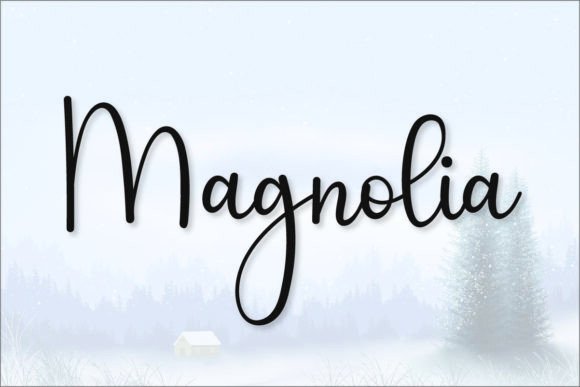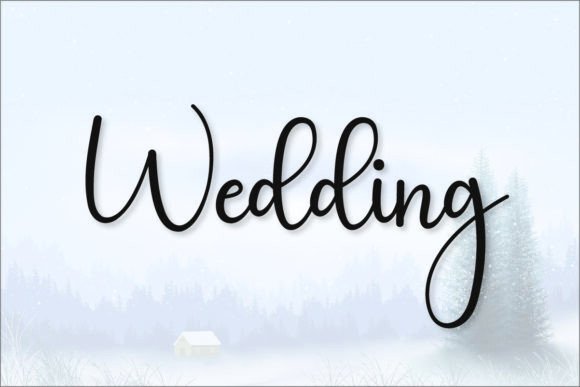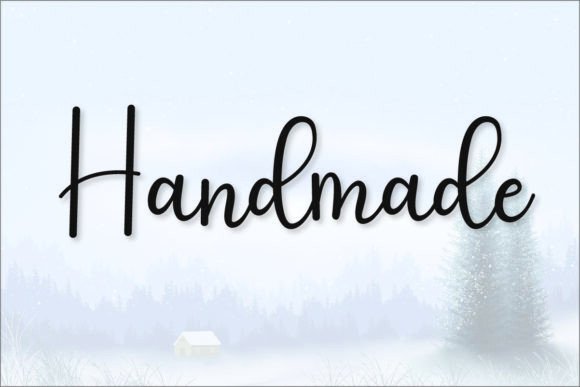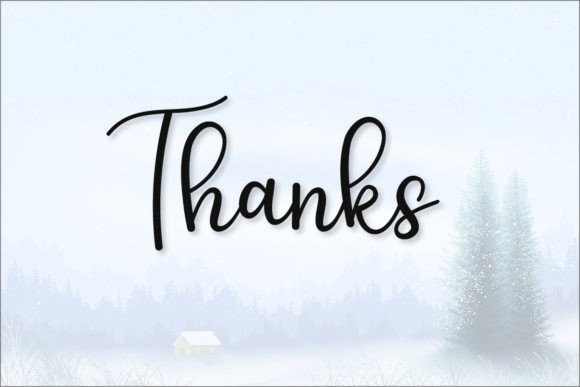
Introduction to Simple Signatured Font
Simple Signatured is a stylish and incredibly elegant handwritten font.
It looks stunning on wedding invitations, thank you cards, quotes, greeting cards, logos, business cards, and every other design which needs a handwritten touch .
Key Features of Simple Signatured Font